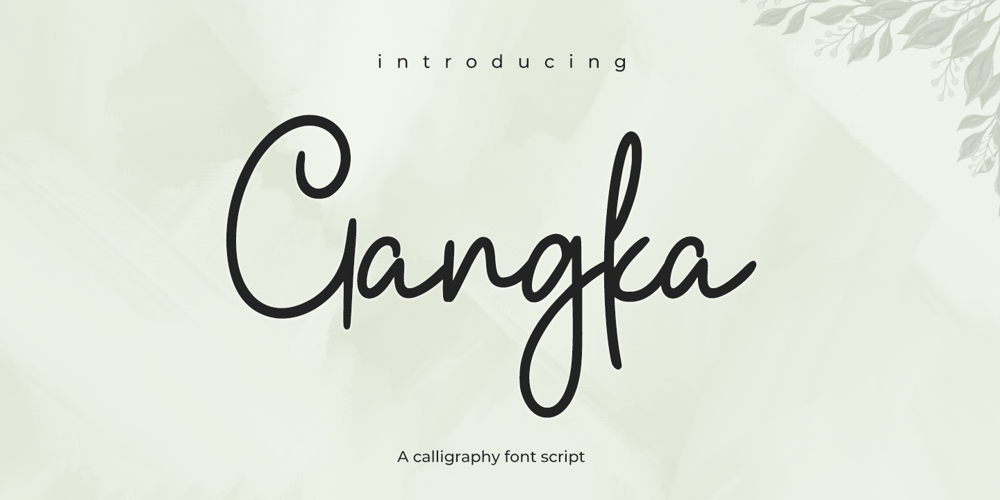
Gangka Font Family was designed by Muhammad Zaini and published by Cocodesign. Gangka contains 1 styles and family package options. Introducing Gangka Script: a font subtly drawn from the timeless charm of vintage calligraphy. Skillfully designed to infuse elegance into every stroke, it is particularly suited for sophisticated logos, nuptial invitations, contemporary web design, heartfelt greeting cards, and beyond. Experience a touch of class that speaks volumes with Gangka Script.